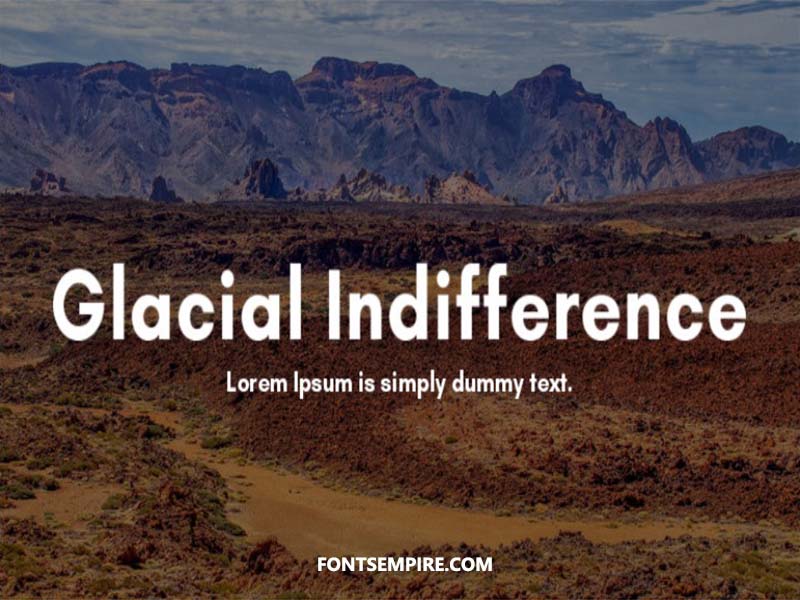
Fonts Similar To Glacial Indifference
Fonts Similar To Glacial Indifference - Web glacial indifference, a minimalist sans serif font, draws inspiration from the geometric fonts of the bauhaus movement.
Web glacial indifference, a minimalist sans serif font, draws inspiration from the geometric fonts of the bauhaus movement.